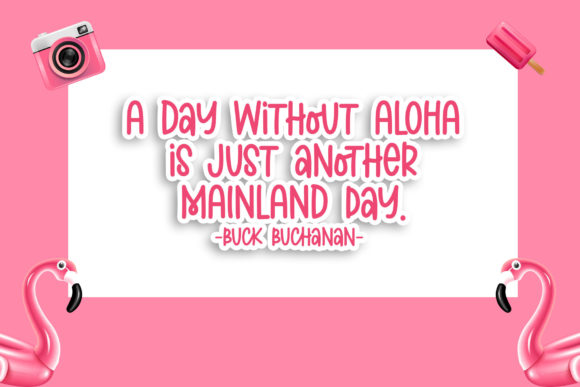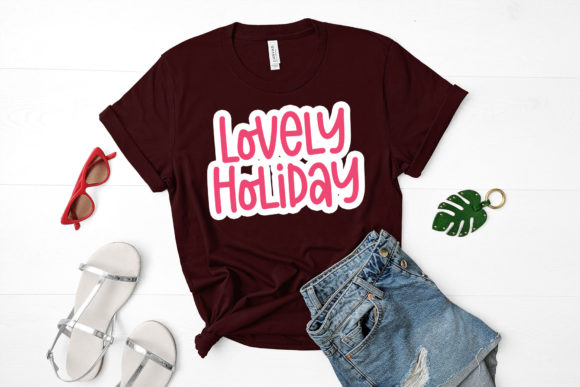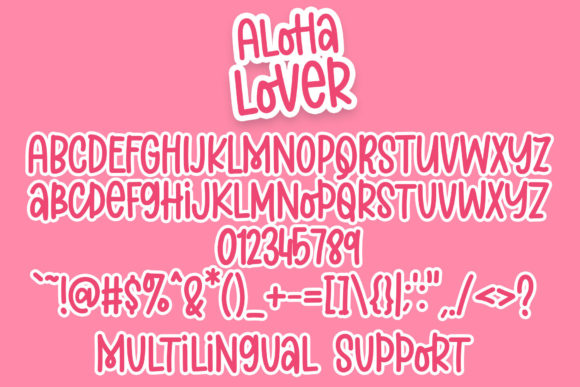
The Perfect Font for a Little Aloha
Who hasn’t had that moment where a font just speaks to them? For some, it’s the elegant curves of a serif font, while for others, it’s the playful scribbles of a handwritten font. For me, it’s the whimsical charm of the Aloha Lover Font. As soon as I laid eyes on its quirky design, I knew I had to learn more.
Aloha Lover Font is a delightful, handwritten font that exudes playfulness and authenticity. Designed with children in mind, it’s the perfect choice for any activity or project that needs a touch of warmth and personality. Whether you’re a designer, a teacher, or a parent, this font is sure to bring a smile to your face.
For designers, Aloha Lover Font is a valuable addition to any project. Its unique style and versatility make it an ideal choice for a wide range of applications, from children’s book covers to social media graphics. And with its Aloha Lover charm, it’s sure to leave a lasting impression on your audience.
Aloha Lover Font Key Features
- Font Family: Aloha Lover Font is a unique, handwritten font designed to evoke the feeling of tropical paradise.
- Unique Characteristics: Aloha Lover Font features a mix of cursive and script elements, with a touch of whimsy and playfulness, making it perfect for creating eye-catching designs.
Aloha Lover Font Review
I recently had the chance to work with the Aloha Lover Font, and I must say, it’s a unique and interesting addition to any design project. ✨ Here are some things that really stand out:
- Fun and tropical vibe: The Aloha Lover Font is perfect for capturing the carefree spirit of Hawaiian culture.
- Great for travel or summer-themed designs: Its playful, whimsical feel makes it a great choice for projects related to travel, beach life, or summer activities.
- Unique and eye-catching: The font’s quirky design elements make it stand out from more traditional fonts.
However, like any font, the Aloha Lover Font has its limitations. ⚠️ Here are some things to consider:
- Not suitable for formal designs: The font’s playful feel may not be suitable for more formal or professional projects.
- Limited versatility: While it’s great for tropical or summer-themed designs, it may not be the best choice for projects with more serious or complex themes.
Overall, I think the Aloha Lover Font is a fun and unique addition to any design project. While it may not be suitable for every type of project, it’s perfect for capturing the carefree spirit of Hawaiian culture or adding a playful touch to summer-themed designs.
Tips for Getting the Most Out of the Aloha Lover Font
To get the most out of the Aloha Lover font, try the following:
- Use it for beach-themed designs, such as invitations, posters, and social media graphics.
- Combine it with other tropical fonts for a fun and playful look.
- Experiment with different font sizes and colors to create a unique visual effect.
The Aloha Lover font is commonly used for:
- Beach-themed designs and invitations.
- Tropical-themed social media